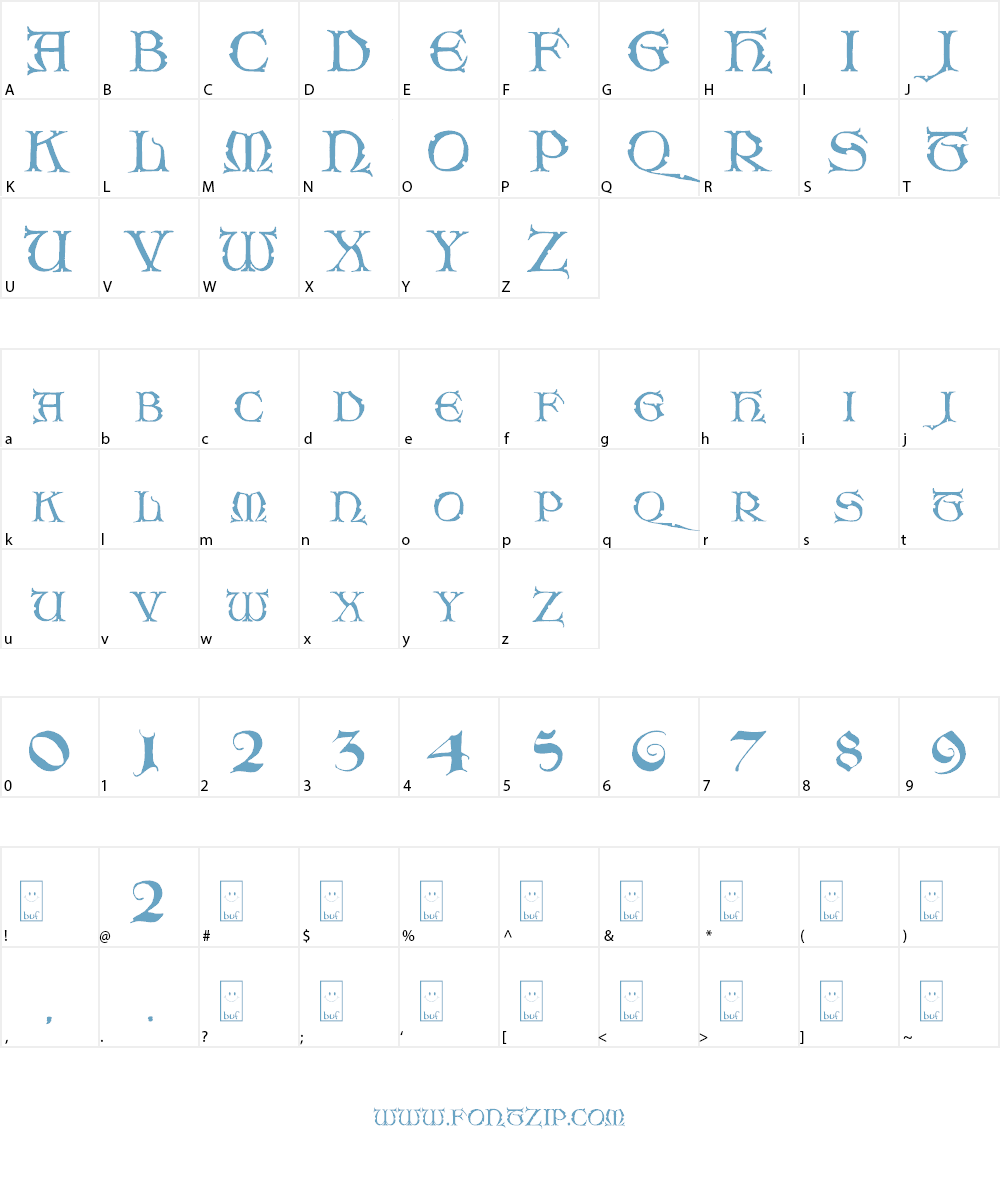
bu Scarecrow is based on the penwork by Walter Crane. I'm not sure when he did the artwork but it was around the beginning of the 1900's, give or take a decade or two. I did a little modification to the font and had to manufacture a character or two for a full alphabet. I added the numbers just to give some functionality. The punctuations, as few as they are, were manufactured just so there are some.